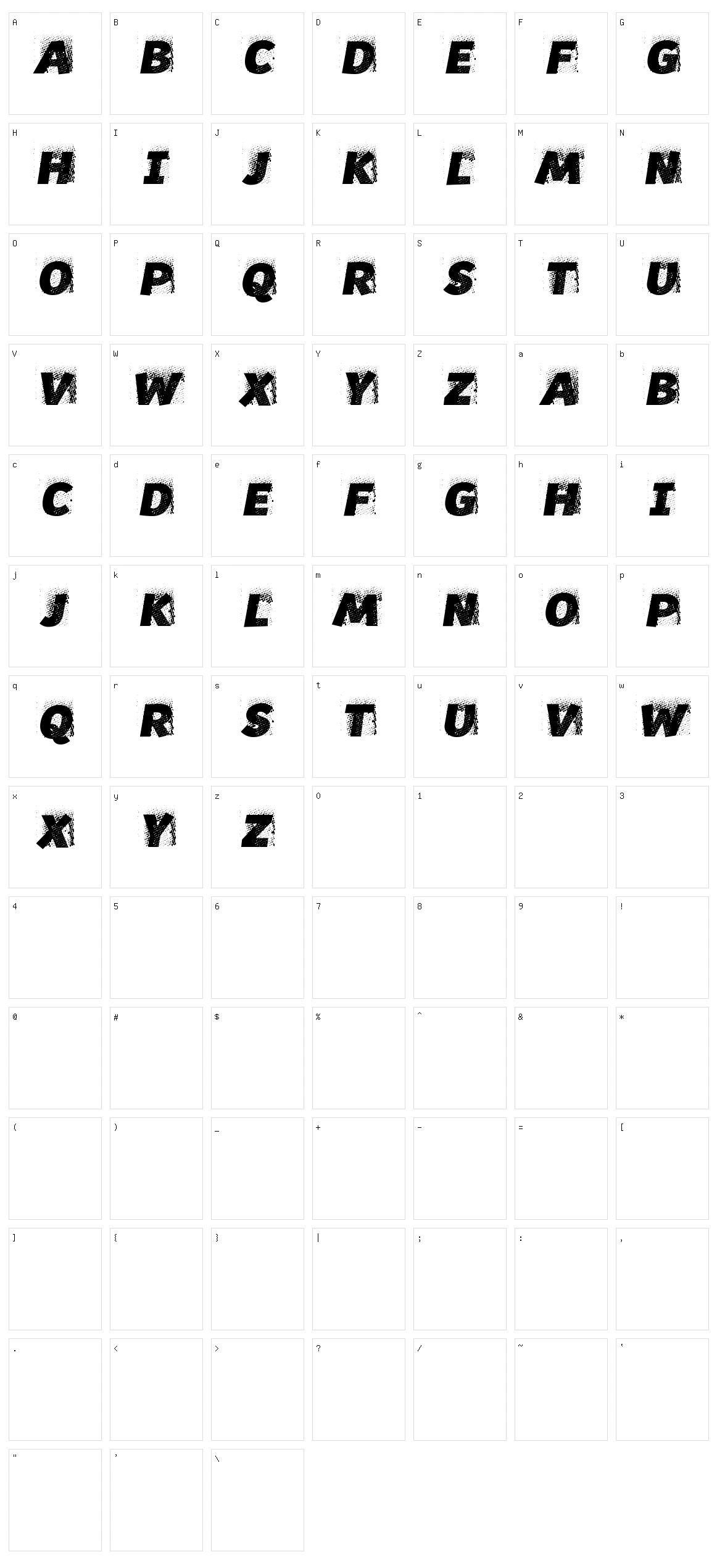
The free font Screw your guys! is carefully designed by Font Bureau, showcasing a thoughtful balance of creativity and usability and falls under the Eroded font style. When you download the ZIP file, it contains only 92.93 KB of font files, making it lightweight and quick to download. Please review the license details below to understand permitted usage and distribution rights. If license information is not available, we recommend using this font for personal projects only or contacting the author directly for commercial usage permissions.